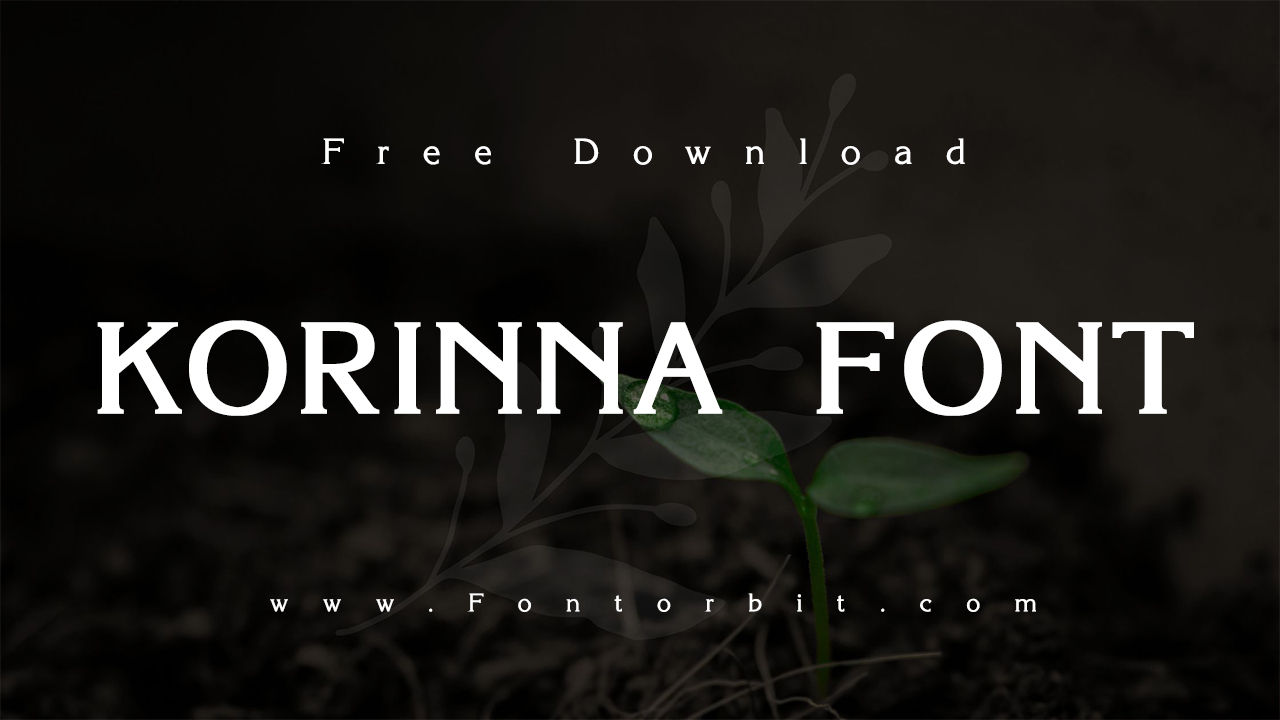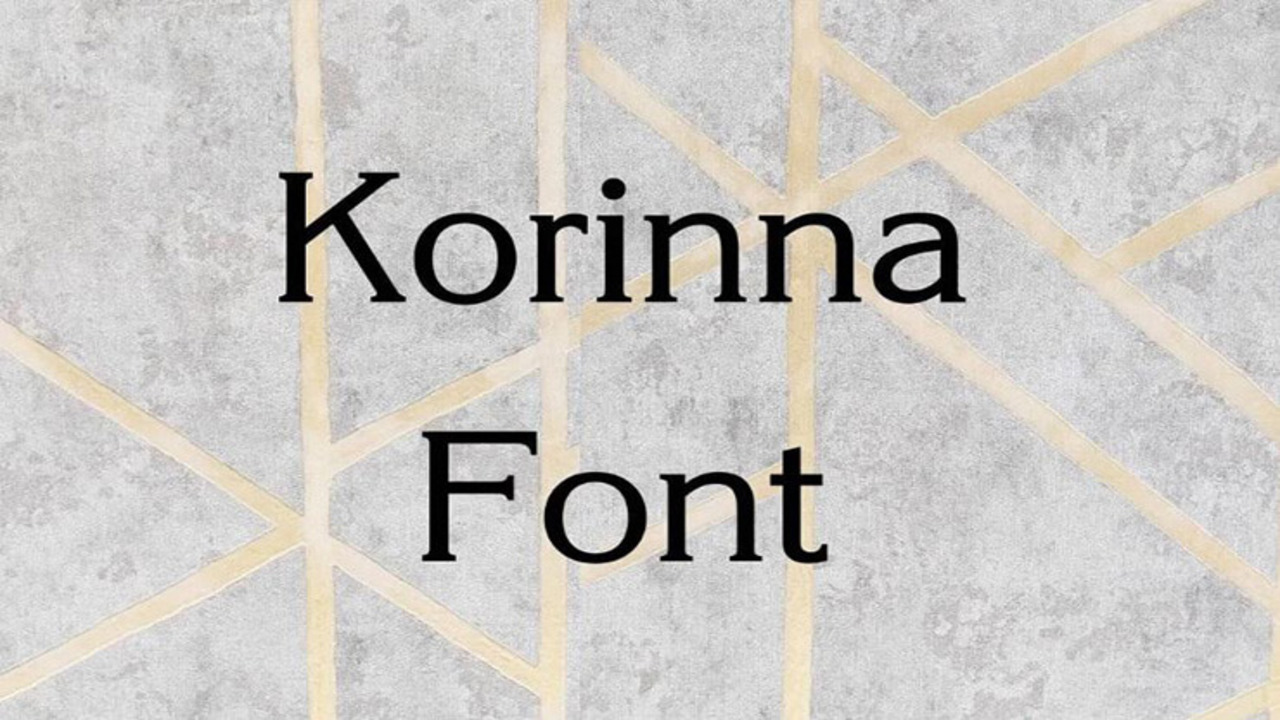
Korinna Font, designed by Victor Caruso and Edward Benguiat and published by ITC, revives an early 20th-century German design with a modern twist. This versatile typeface includes 8 distinct styles, perfect for both classic and contemporary design projects. Available for commercial use through ITC licensing, Korinna Font is familiar for its elegant and versatile nature.
The Korinna Font is from the Serif font family. It boasts a classic, Art Nouveau-inspired design with a modern revival approach. Featuring multiple weights from light to ultra, Korinna is ideal for display and advertising typography, as well as for headlines in print and digital media.
Korinna Font is perfect for various creative and professional projects such as:
- Magazine headlines
- Advertisement layouts
- Editorial spreads
- Book covers
- Creative advertising campaigns
- Display signage
- High-impact print materials
The Korinna font is often employed in design contexts that require a blend of classic elegance and modern versatility. It is popular in editorial design, magazine layouts, and high-profile advertising. Its timeless style enhances both print and digital designs, making it a go-to choice for projects that need a sophisticated and refined typographic presence.
Korinna Font offers a refined, classic typeface ideal for both traditional and contemporary design needs. Its versatility and elegant design make it suitable for a wide range of projects. For specialized or commercial projects, explore ITC’s licensing options or consider similar serif fonts for a comparable style.
3.What Is The Popularity Of The Korinna Font?
Korinna Font is well-regarded for its classic elegance and versatility, commonly used in editorial and advertising design.
4.What Languages Does The Korinna Font Support?
Korinna Font supports a range of languages with Latin script, including extended characters for broader linguistic needs.